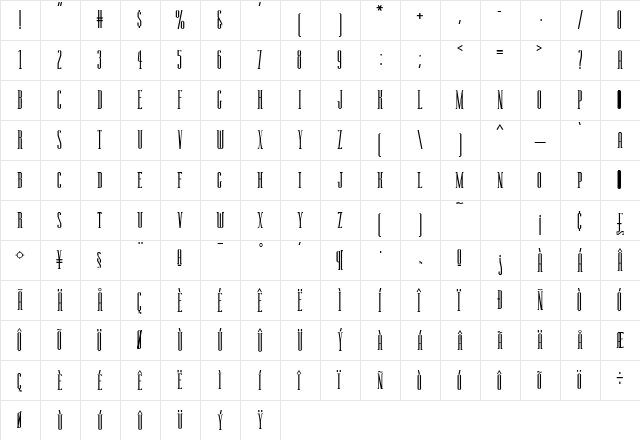
DumontSSK Regular
Design Context for DumontSSK Typeface
DumontSSK offers clean, dependable letterforms without strong stylistic allegiance, making it a practical choice for designers who need flexibility.